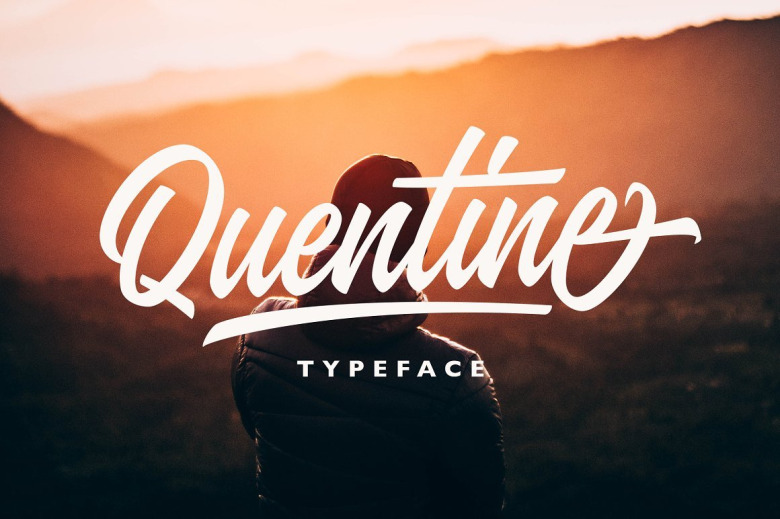
Quentine Font
Quentine is a script typeface with sharp and rough character. Ideal for logos, name tag, quotes, product packaging, merchandise, social media & greeting cards. It contains a full set of lower & uppercase letters, alternative characters, a large range of punctuation, numerals, and multilingual support.
The alternative characters in this font were divided into several OpenType features such as Stylistic Alternates, Stylistic Sets, and Ligature.